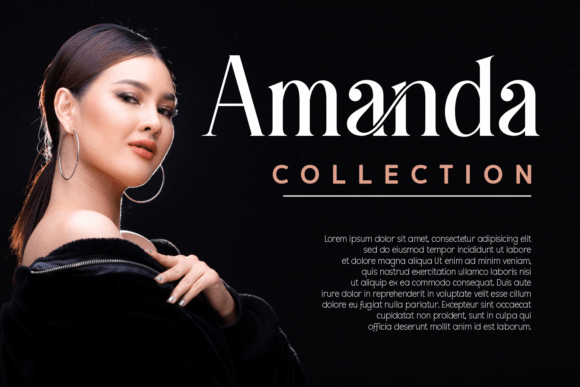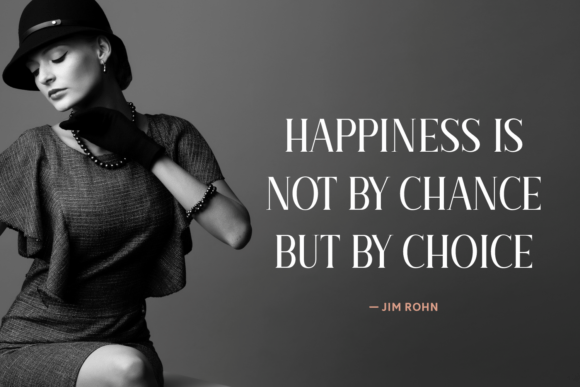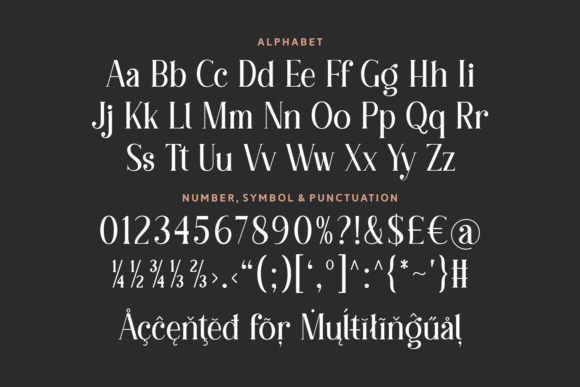
Introduction to Enatika Font
Enatika is a modern serif font with high-end elegance and a distinctly editorial flair.
Featuring sleek letterforms, luxurious contrast, and graceful swashes, Enatika is perfect for fashion branding, beauty packaging, wedding designs, and upscale social media graphics Its stylish alternates and refined presence make it a standout choice for any project that needs sophistication with a bold twist.